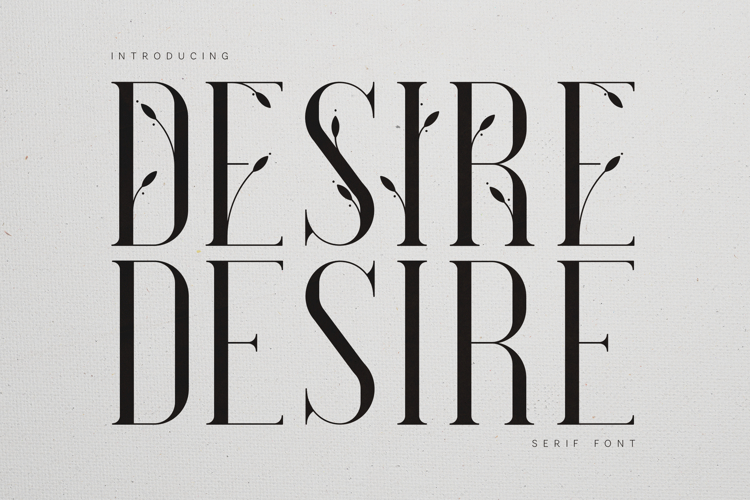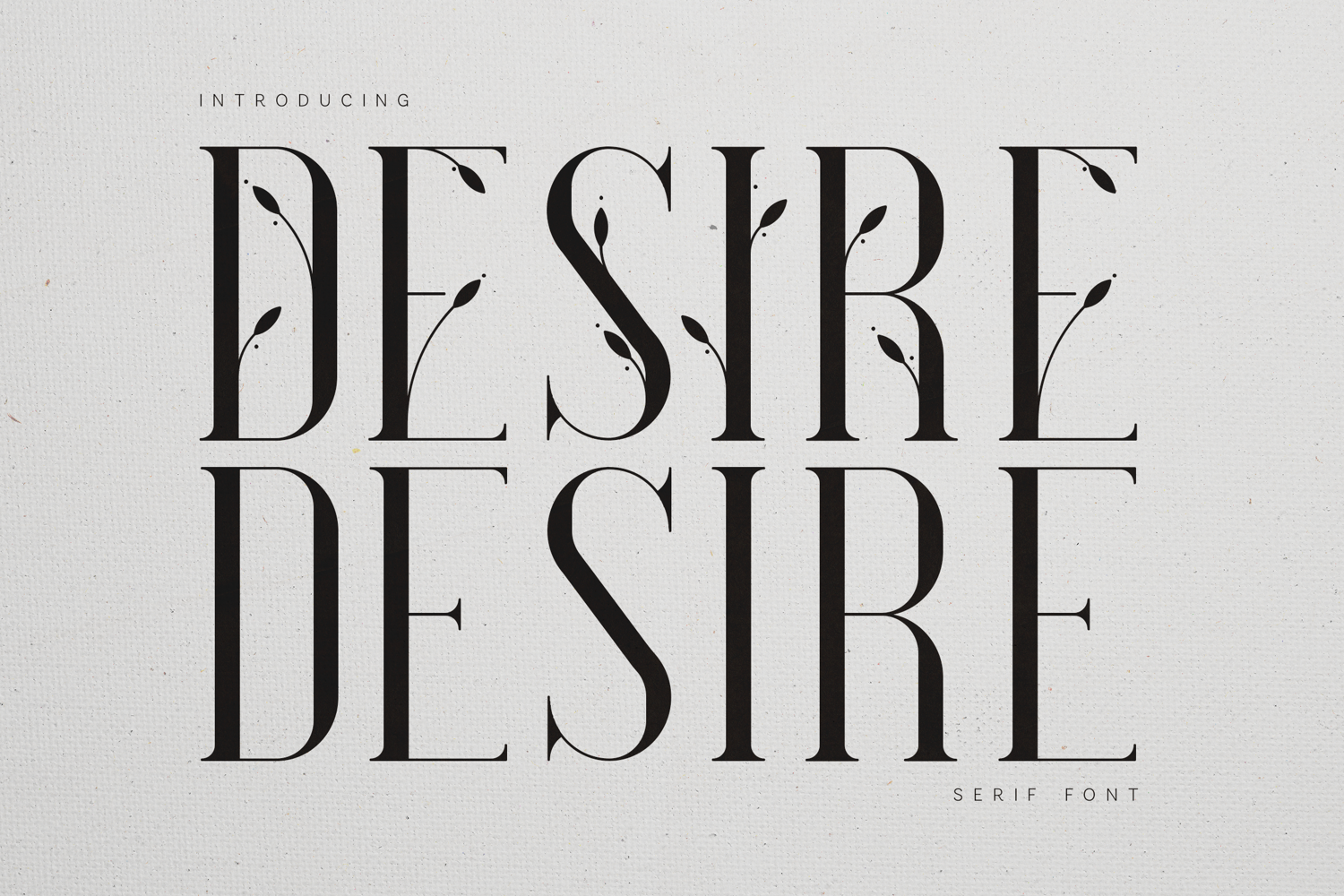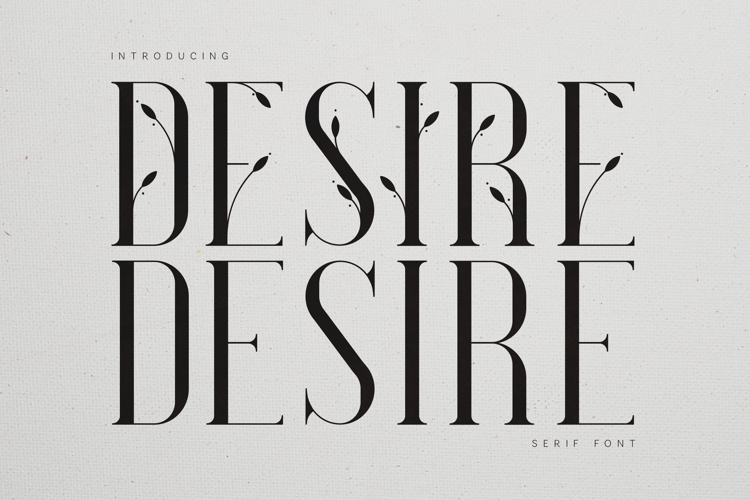
Desire Elegant Botanical Serif Font
Desire is a refined botanical serif typeface that blends elegant letterforms with delicate organic leaf details. The typeface combines classic serif structure with subtle decorative elements, creating a sophisticated and artistic typography style.
The graceful stems and botanical accents bring a natural rhythm to each letter, giving the font a luxurious and expressive appearance while maintaining excellent readability. This balance makes Desire ideal for branding, editorial design, luxury packaging, and creative typography.
The elegant serif proportions and organic leaf motifs create a unique aesthetic that feels both timeless and contemporary. Designers can use Desire to add personality and refinement to their visual projects.
This typeface works beautifully for fashion branding, wedding designs, magazine layouts, logos, product packaging, invitations, and premium typography compositions.
The font includes uppercase letters, lowercase letters, numbers, punctuation, and multilingual characters, allowing it to be used in international design projects.
Whether you’re creating luxury branding, elegant editorial layouts, or artistic typography, Desire adds sophistication and natural beauty to your designs.